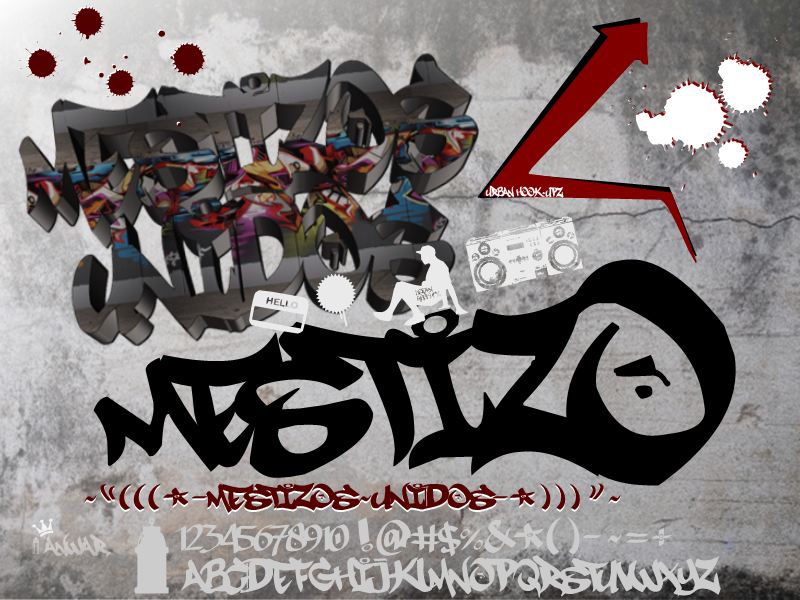
Preview and download Mestizos Unidos Font. Created by Urban Hook-Upz in Script Graffiti styles with Free for personal use license.
Mestizo: From the Iberian lands to the Americas and the Philippines; What a beautiful blend. This font is a mixed style. I took the time to make sure the flow of the letters mixed and blend well like the Mestizo people. This is the hardest part of font design as you cannot type like a artist truly flows his/her writing. I am humbly happy to claim that I am a Mestizo. I call it, "Mestizos Unidos" for the remembrance of our wonderful heritage and a flow of my script that mixes well. IT'S ((Sure)) to be a ((TOP)) download. |